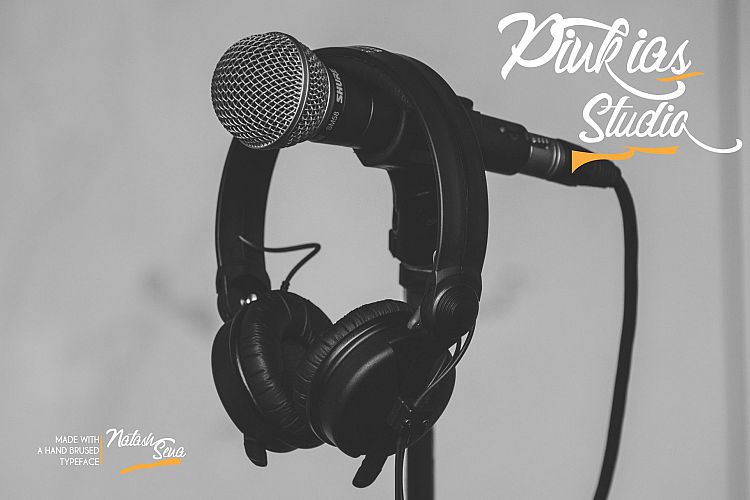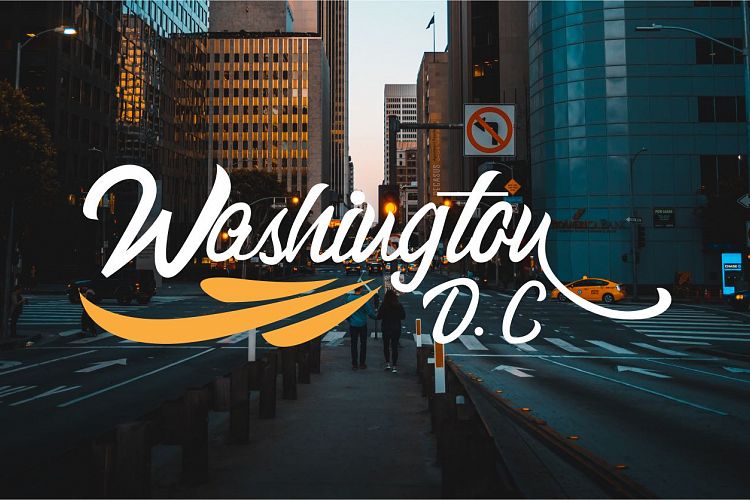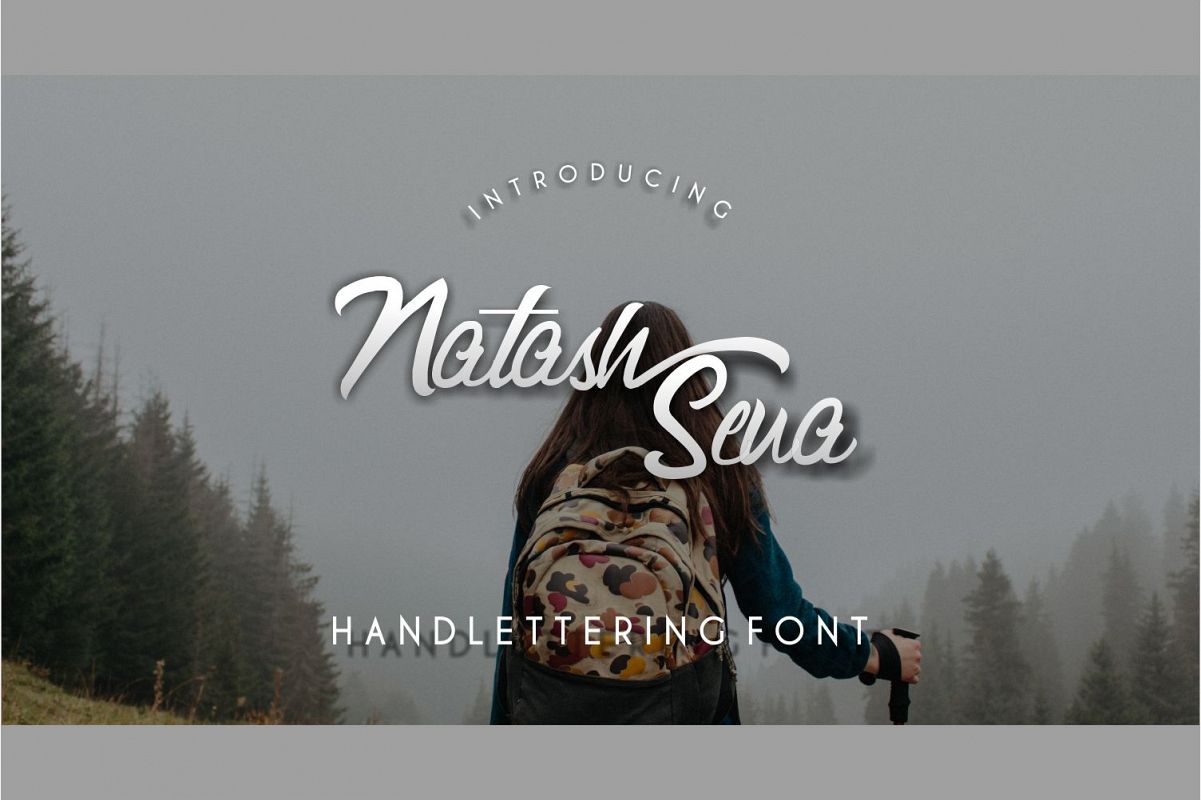
Natash Sena Hendlettering FontScript Font
Natash Sena is a handpainted typeface with a customible style, it’s perfect for latterhead, vintage apparel design, headline, logotype, poster, card, and etc.File Include